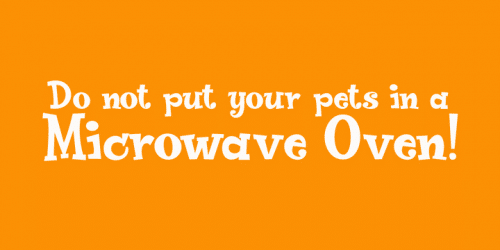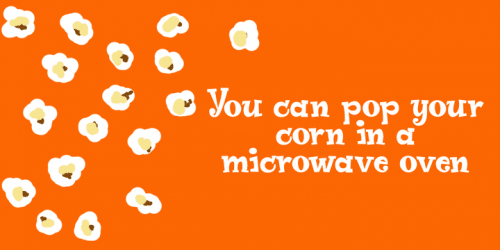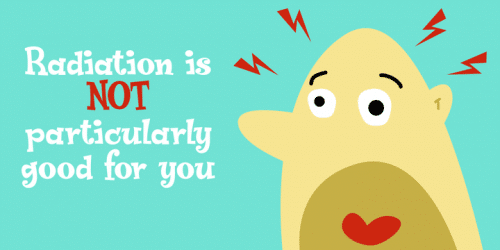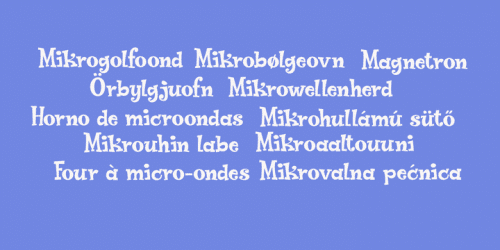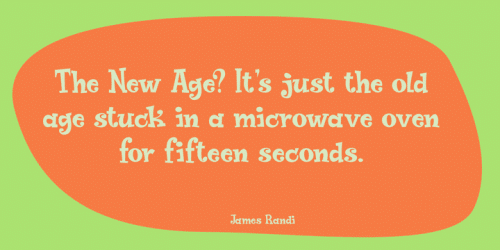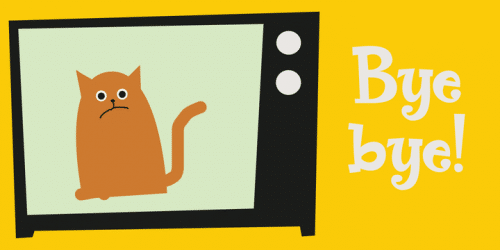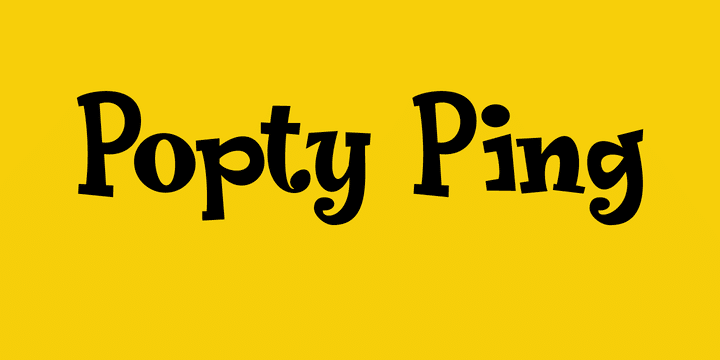
Popty Ping is Welsh slang for microwave oven. It literally means ‘oven that goes ping’. Popty Ping was sort of based on an older font of mine called Jambo.
It is a very happy cartoon font, ideal for children’s book covers, ice cream packaging and microwave popcorn (preferably the non GM kind). Comes in two great styles and more diacritics than you can pop in an oven!